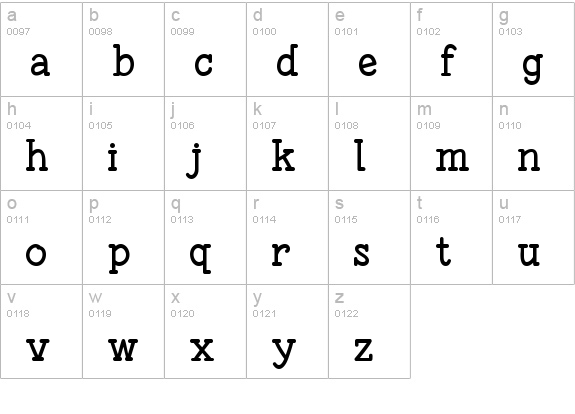
Fonesia Font Details
Introducing Fonesia, a stunningly beautiful font that combines elegance with modernity, making it the perfect choice for a wide range of design projects. Fonesia boasts a unique blend of classic and contemporary elements, resulting in a font that exudes sophistication and style. With its clean and crisp lines, Fonesia effortlessly captures attention and commands a strong presence in any composition. Whether used for headlines, logos, invitations, or branding materials, this font adds a touch of professionalism and finesse to any design. But what truly sets Fonesia apart is that it is not just visually captivating, but also freely available to download. Yes, you read that right! Fonesia is completely free and can be easily accessed at FontsMarket.com, a trusted source for high-quality fonts. Now, designers and enthusiasts alike can enjoy the beauty and versatility of Fonesia without any cost. No need to worry about breaking the bank or compromising on quality – Fonesia offers the best of both worlds. So, why wait? Experience the power of Fonesia for yourself and elevate your designs to new heights. Download this exceptional font today and let your creativity soar like never before.